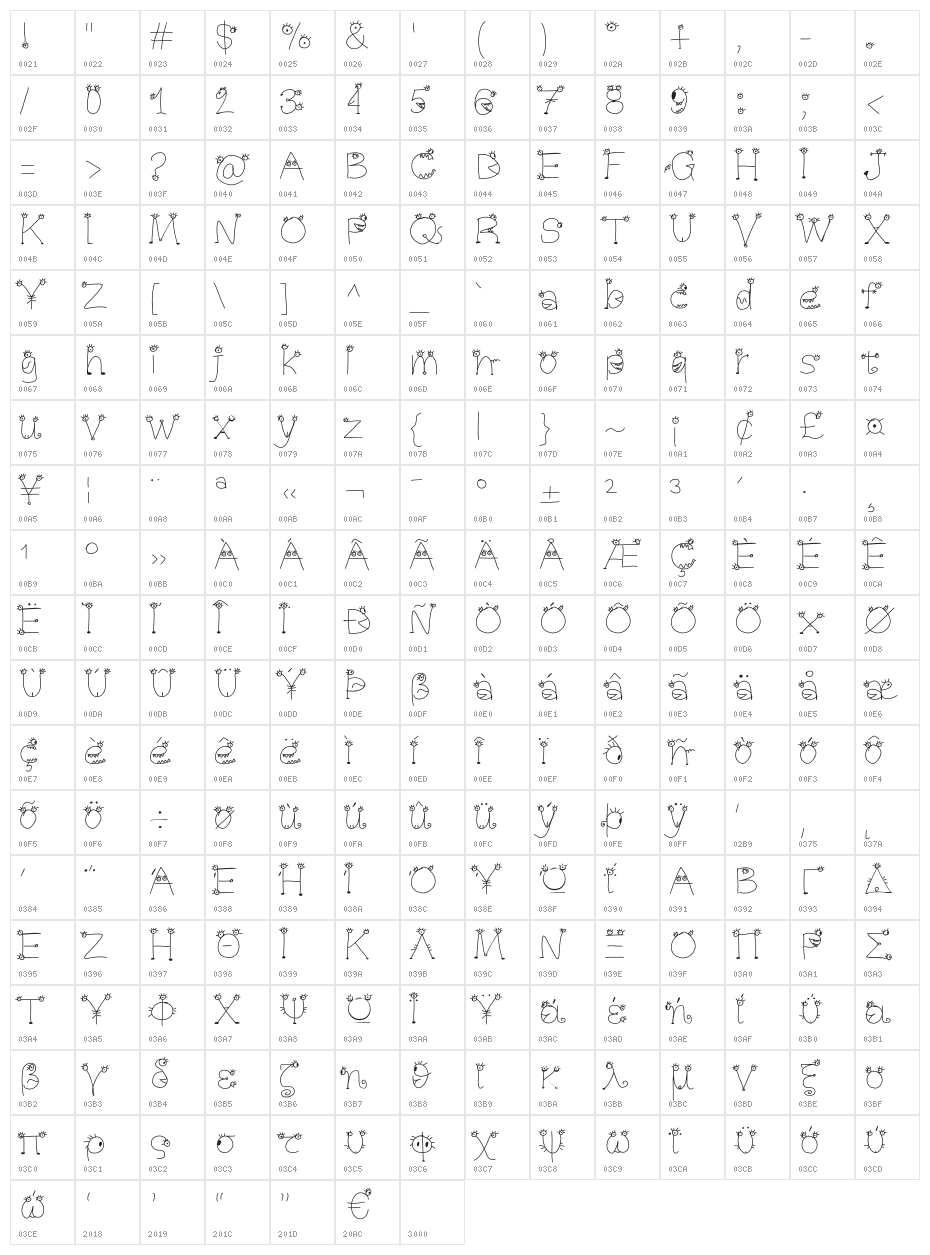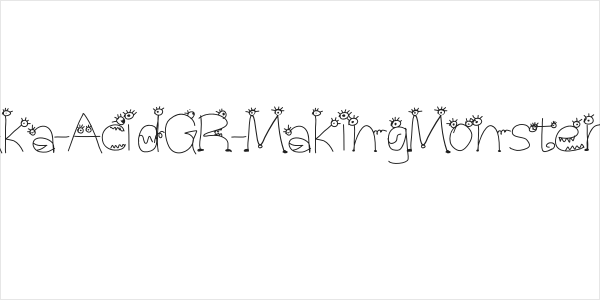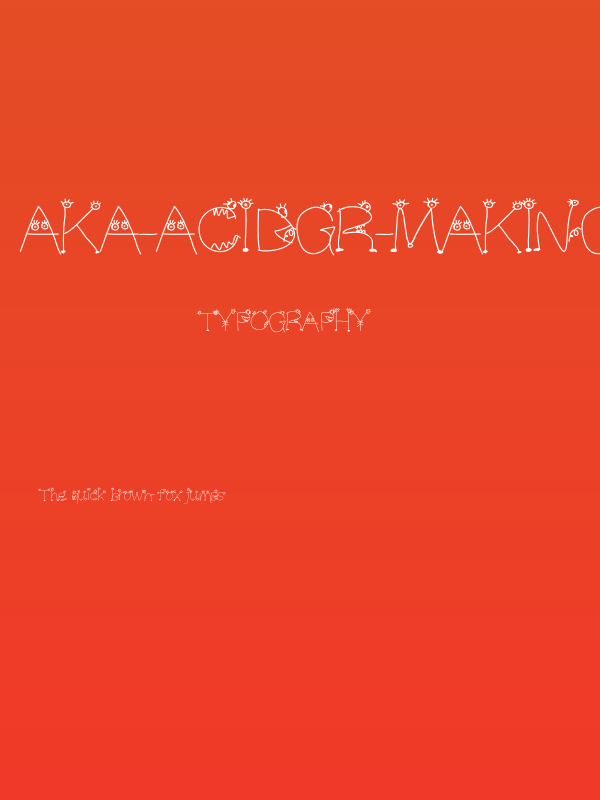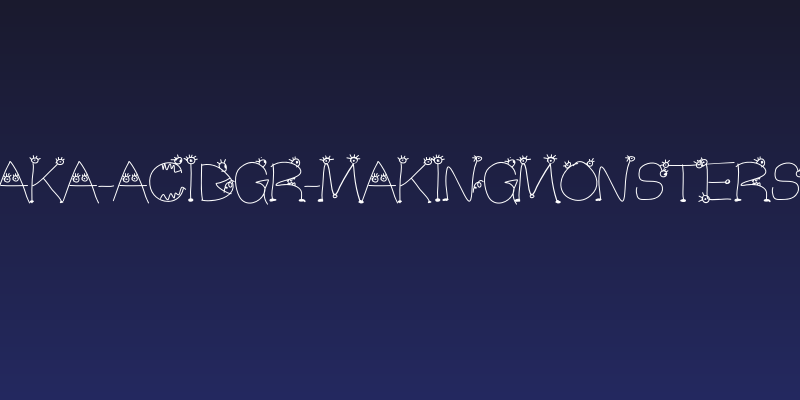
Aka-AcidGR-MakingMonsters Font
Aka-AcidGR-MakingMonsters Description
This playful and whimsical font features a unique monster-themed design, where each character is creatively adorned with eyes and quirky expressions. The letters are hand-drawn with a casual, irregular style, giving them a lively and animated appearance. The uppercase and lowercase letters maintain a consistent theme, with exaggerated features and playful details that make each character stand out. The numbers and special characters follow the same imaginative design, adding a fun and engaging element to any text. This font is perfect for projects that require a touch of humor and creativity, making it ideal for children's books, playful branding, or Halloween-themed designs.
| Use Case | Headlines, Logos, Decorative text |
| Proposed Projects | Children's books, playful branding, Halloween-themed designs, party invitations. |